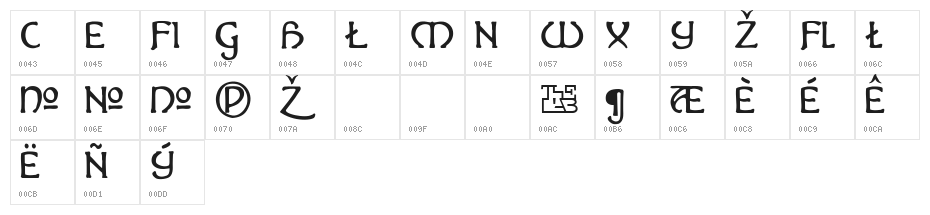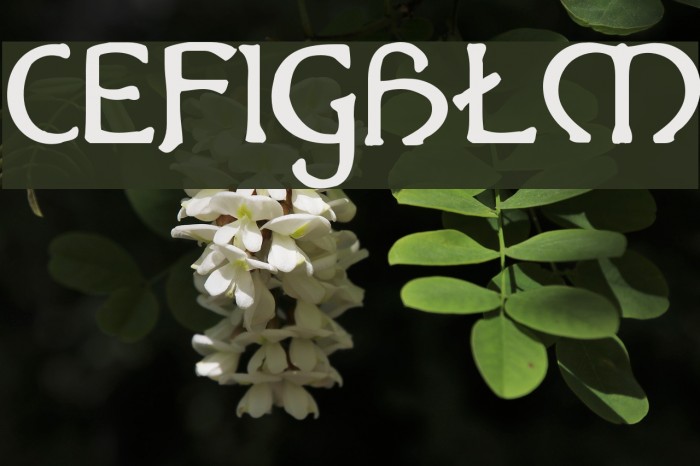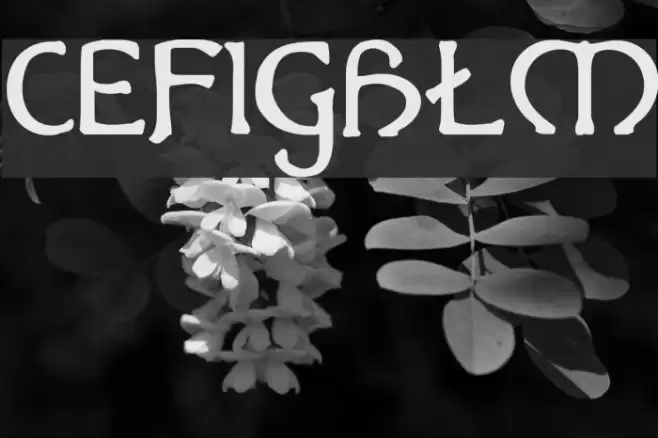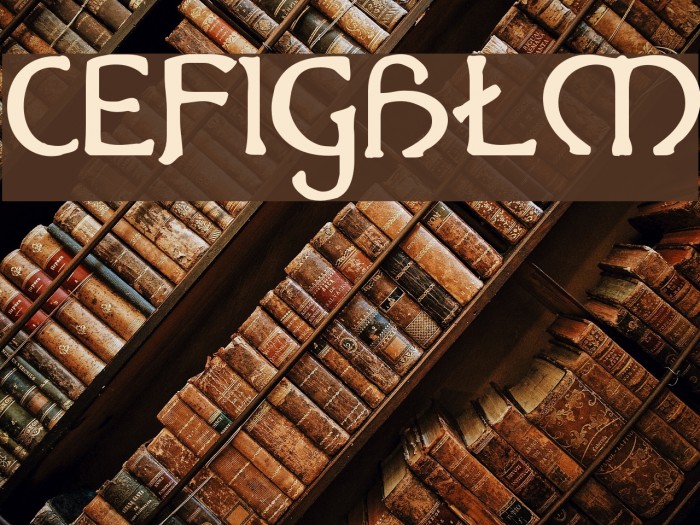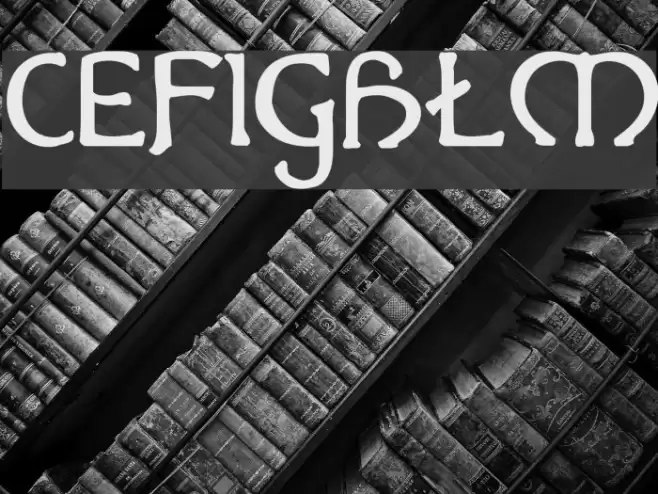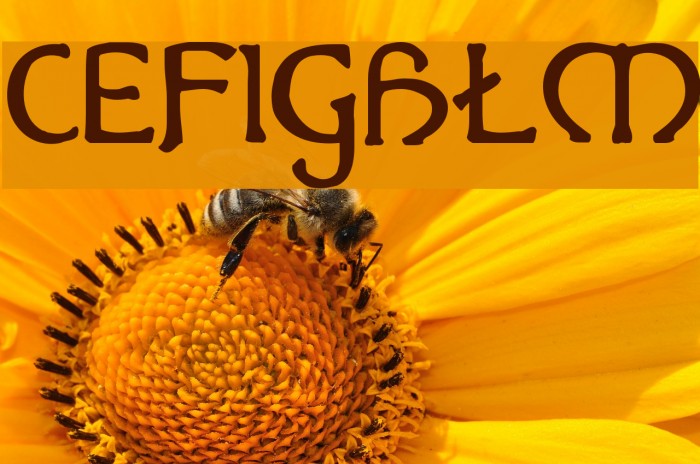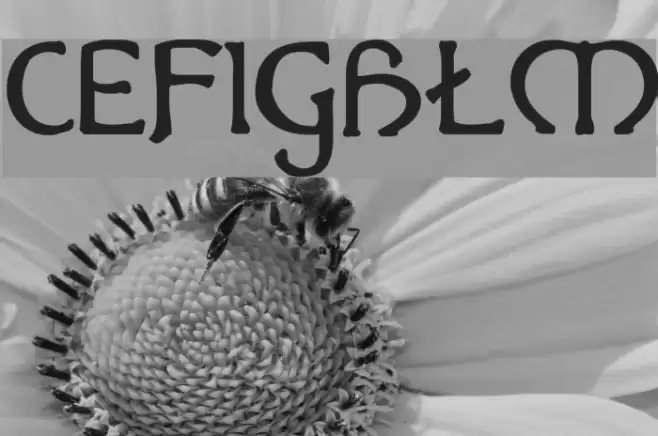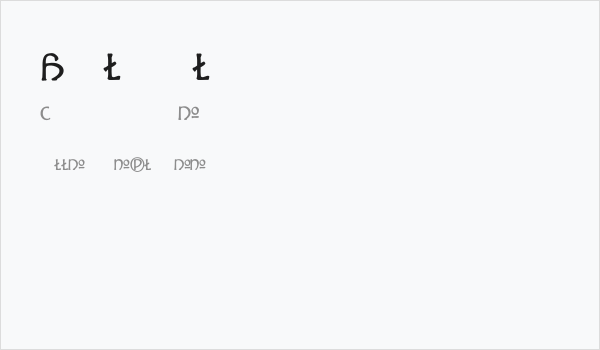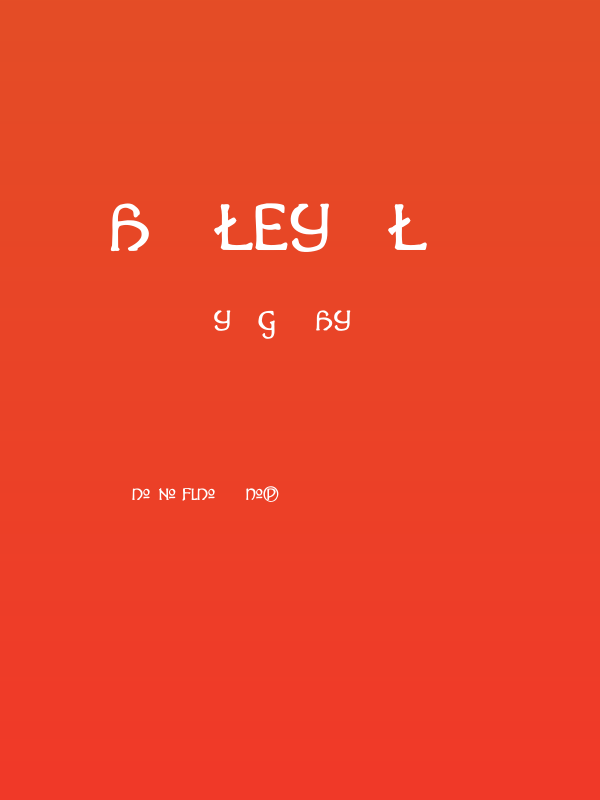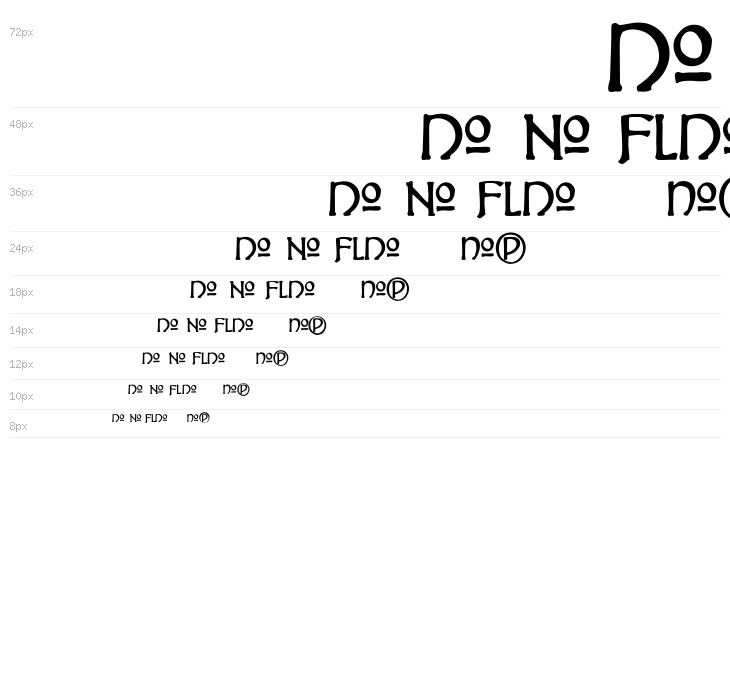
Hadley Alts Font
Hadley Alts Description
This font features a unique and artistic design, characterized by its decorative and whimsical style. The letters have a playful, almost mystical appearance, with curves and flourishes that give each character a distinct personality. The uppercase letters are bold and prominent, while the lowercase letters maintain the same artistic flair. The numbers and special characters follow the same design principles, ensuring consistency throughout. This font is ideal for projects that require a touch of fantasy or creativity, making it perfect for invitations, posters, or branding that seeks to stand out.
| Proposed Projects | Ideal for fantasy-themed invitations, creative posters, unique branding, and artistic projects. |